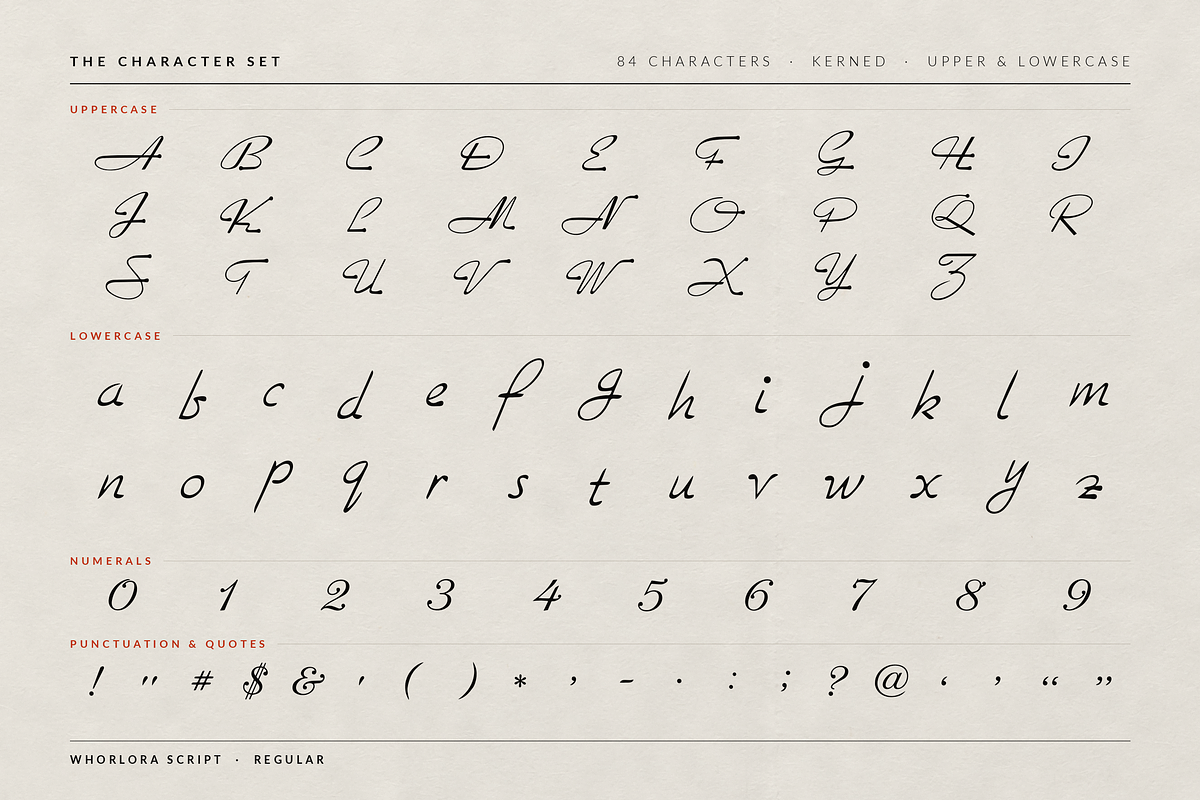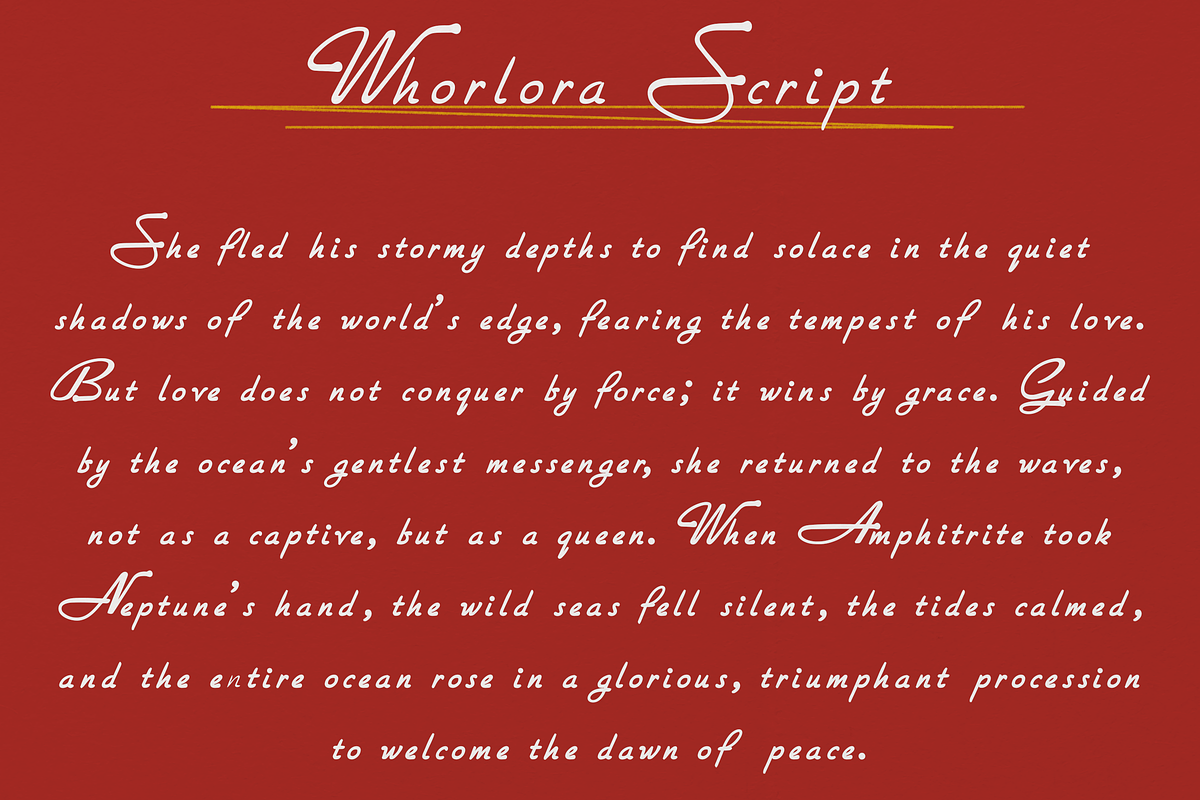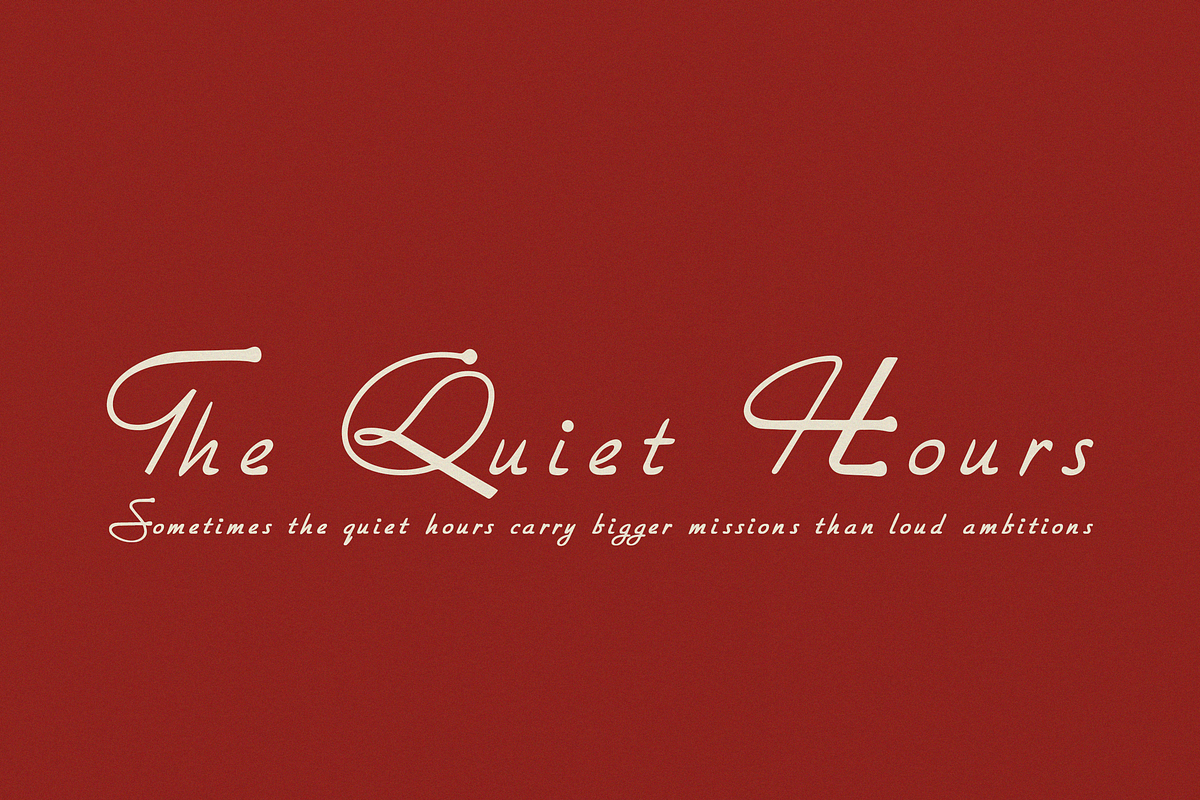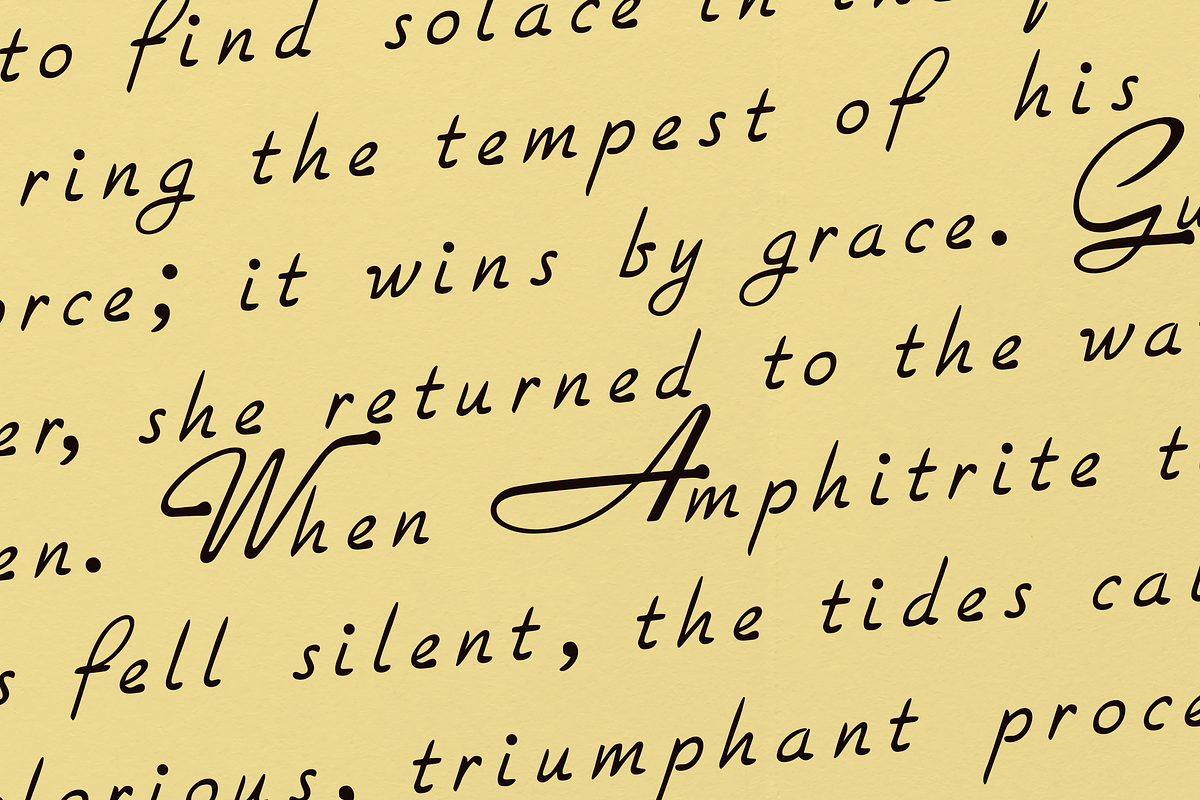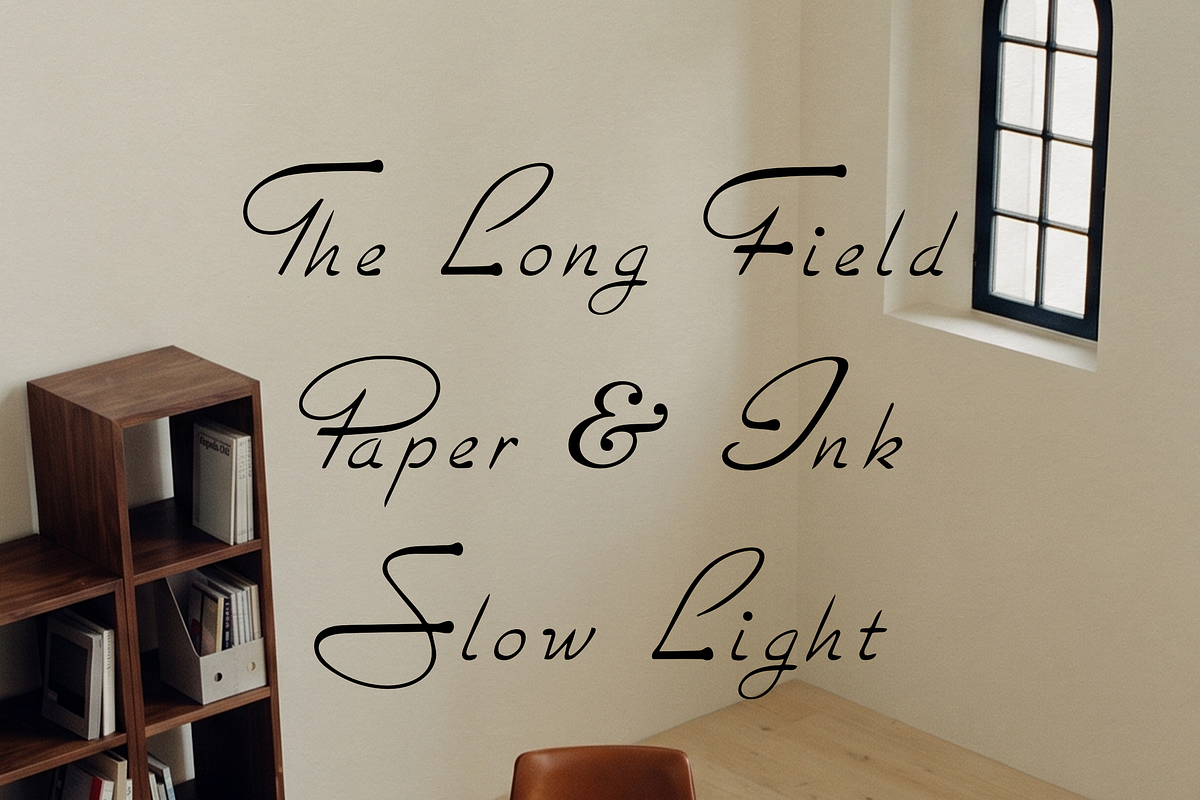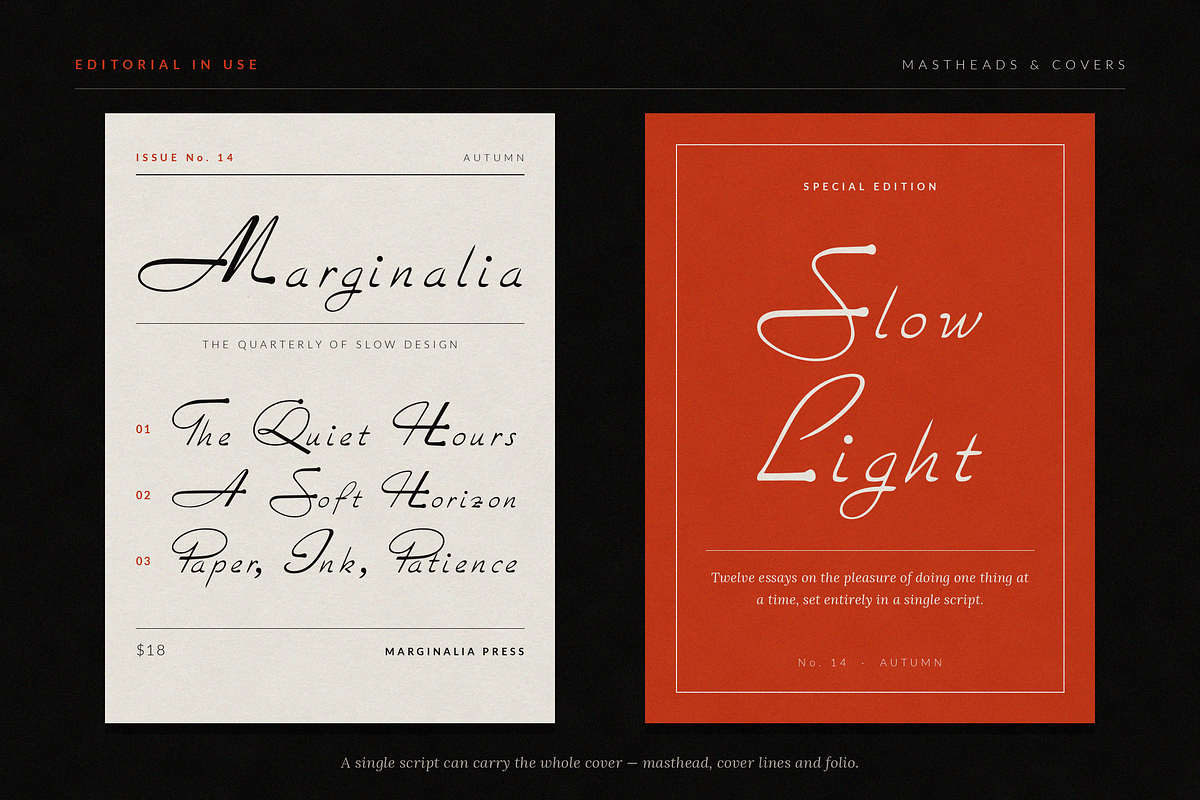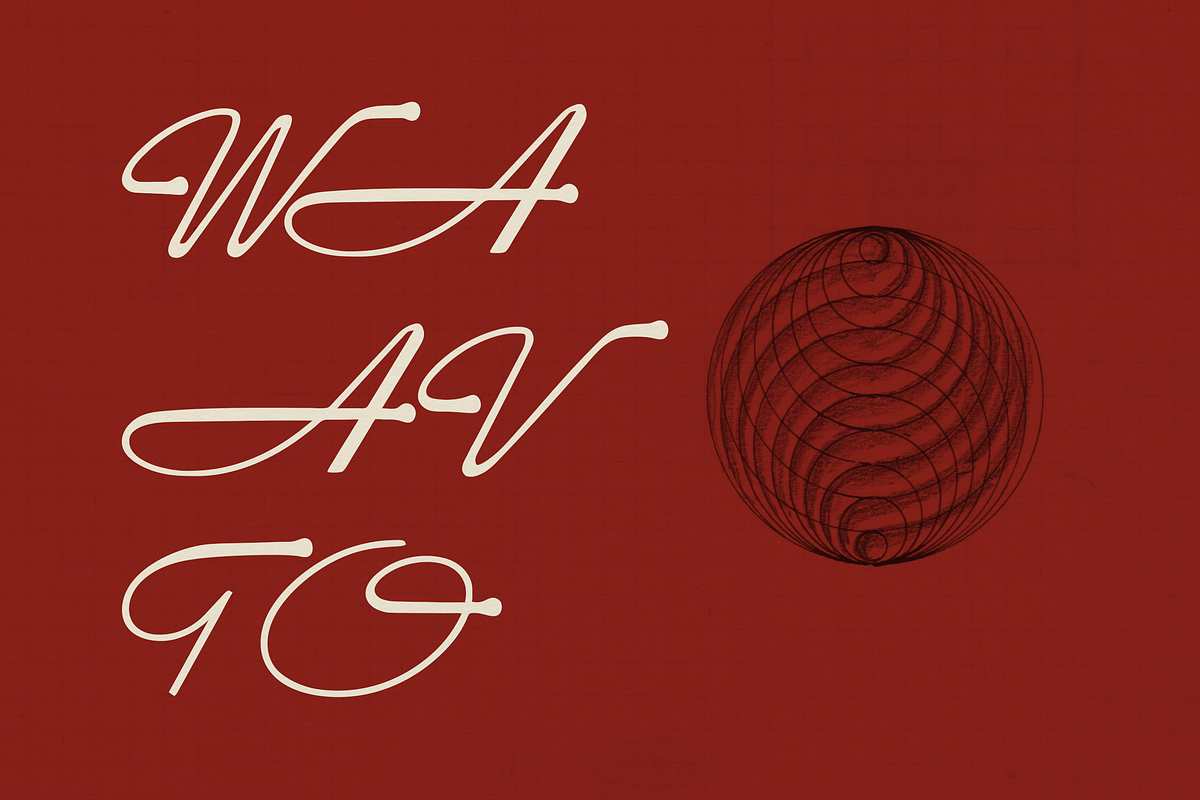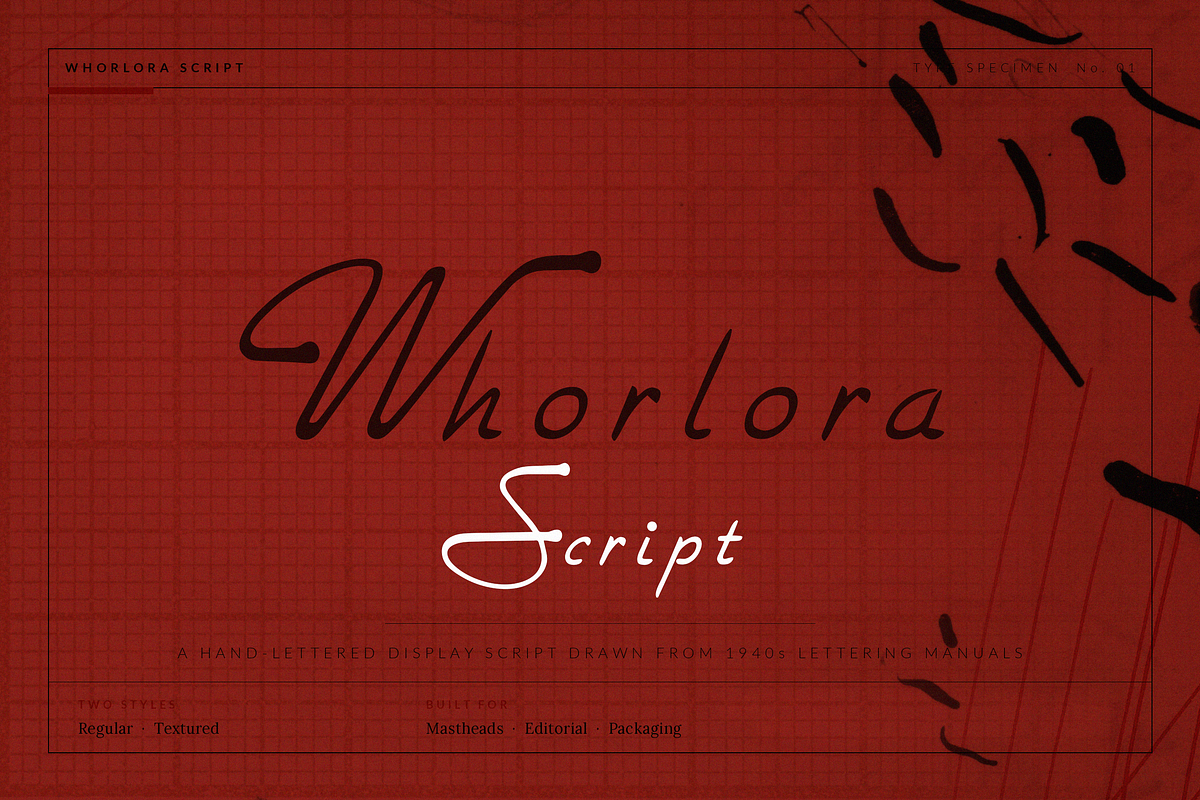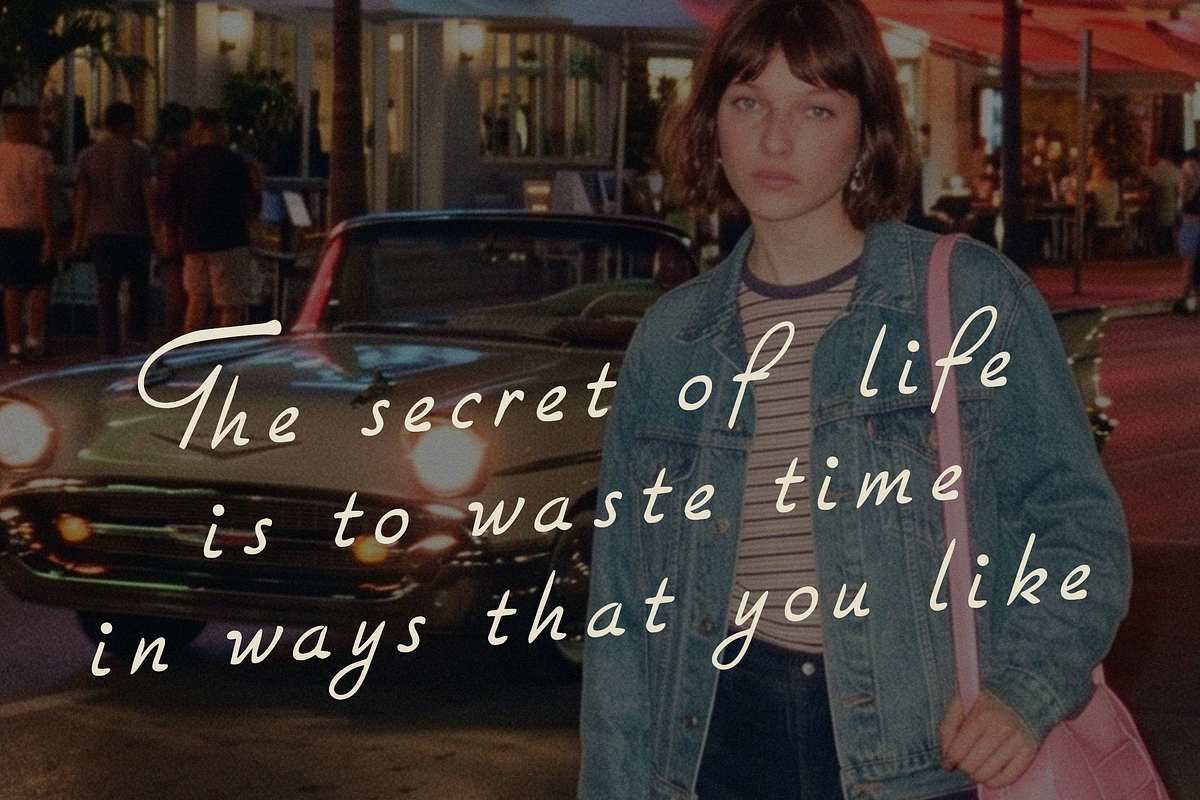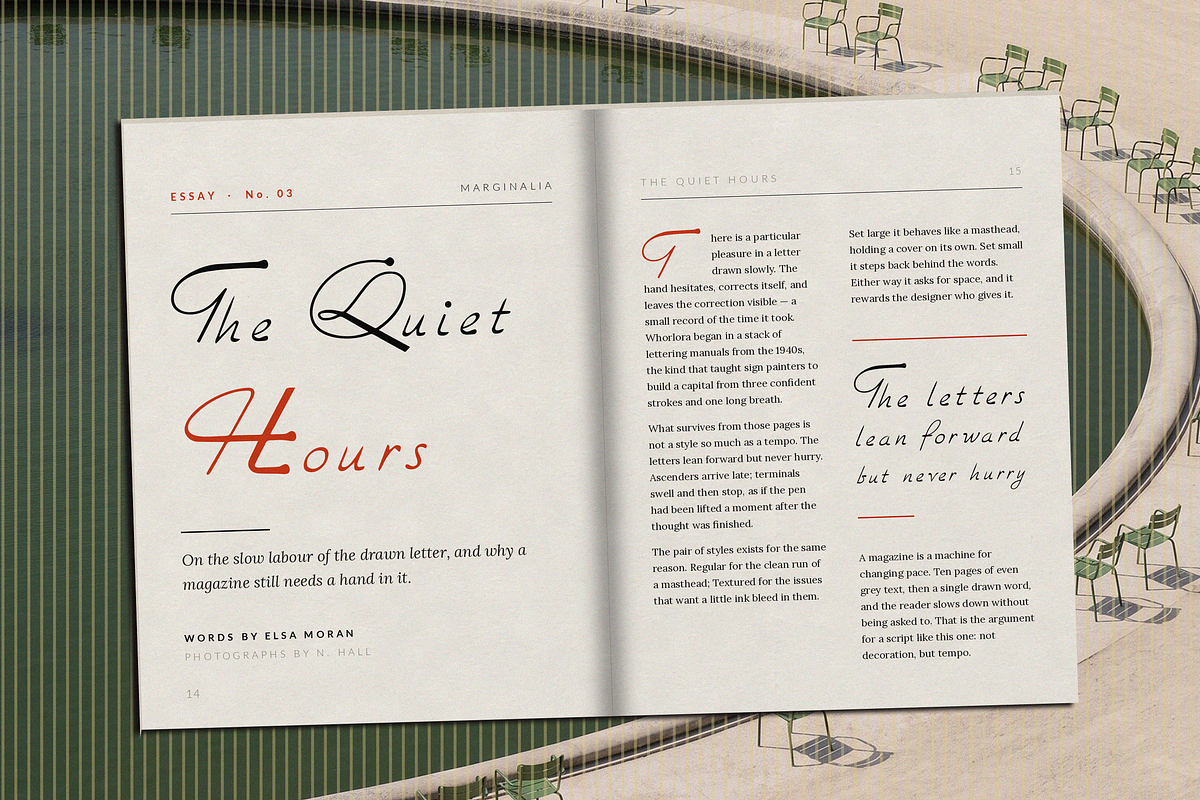
Whorlora Script
Whorlora Script is a refined, hand-lettered script font inspired by vintage lettering books from the 1940s. With its graceful, flowing forms, soft curves, and elegant swashes, it captures the quiet romance of a soft horizon and the timeless beauty of classic calligraphy.
This duo font includes two complementary styles:
Whorlora Script – Clean, smooth, and refined
Whorlora Script Textured – Textured edges for a more organic, letterpress feel
Editorial covers & mastheads
Wedding invitations & stationery
Book titles & poetry
Branding, logos & packaging
Quotes, social media graphics & packaging
Uppercase & lowercase
Numerals & essential punctuation
84 carefully designed characters
Professionally kerned for beautiful text setting
Ideal for both large display use and elegant body text
Whether you’re creating a quiet literary cover, a romantic wedding suite, or a sophisticated brand identity, Whorlora Script brings a soft, timeless elegance that feels both vintage and contemporary.